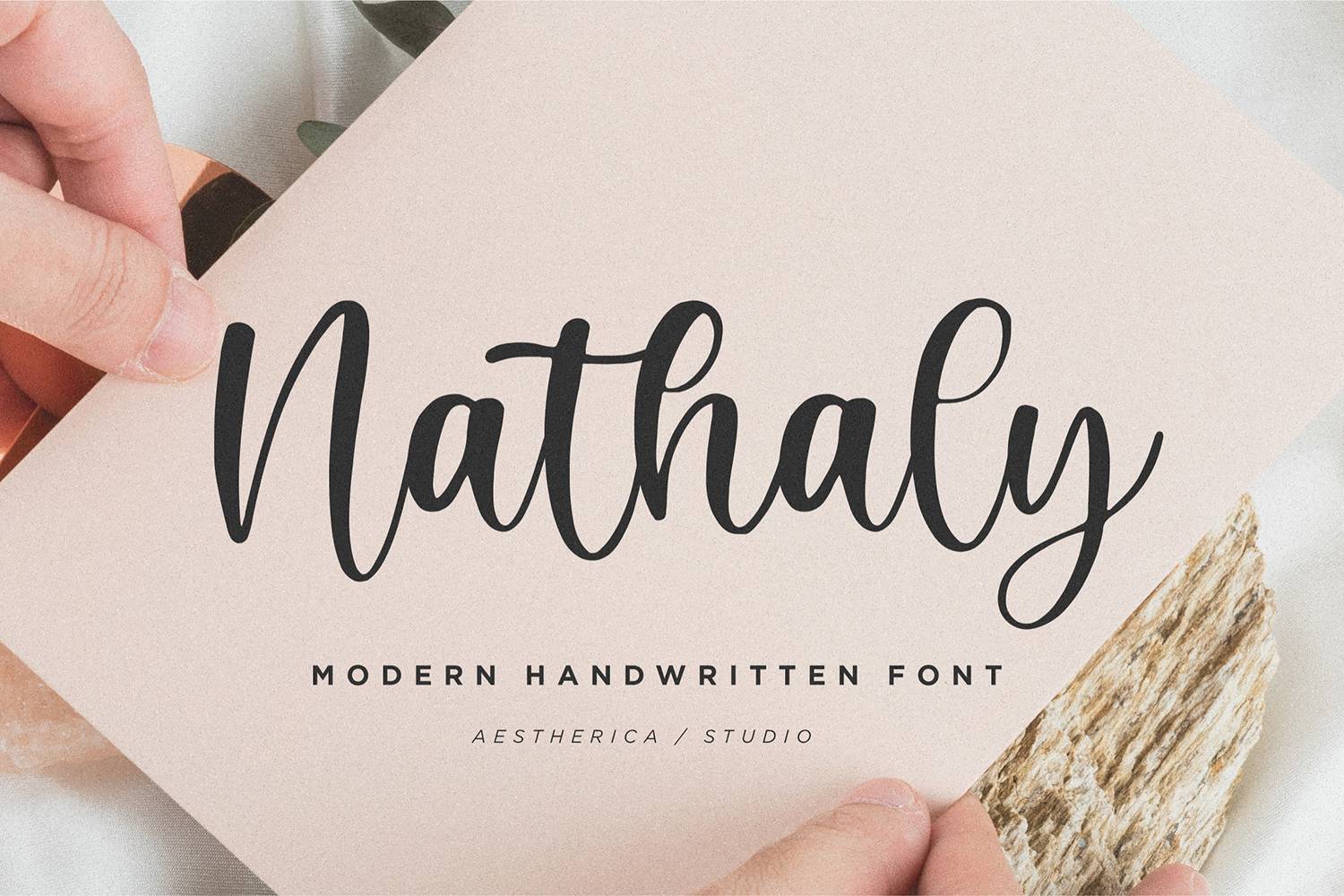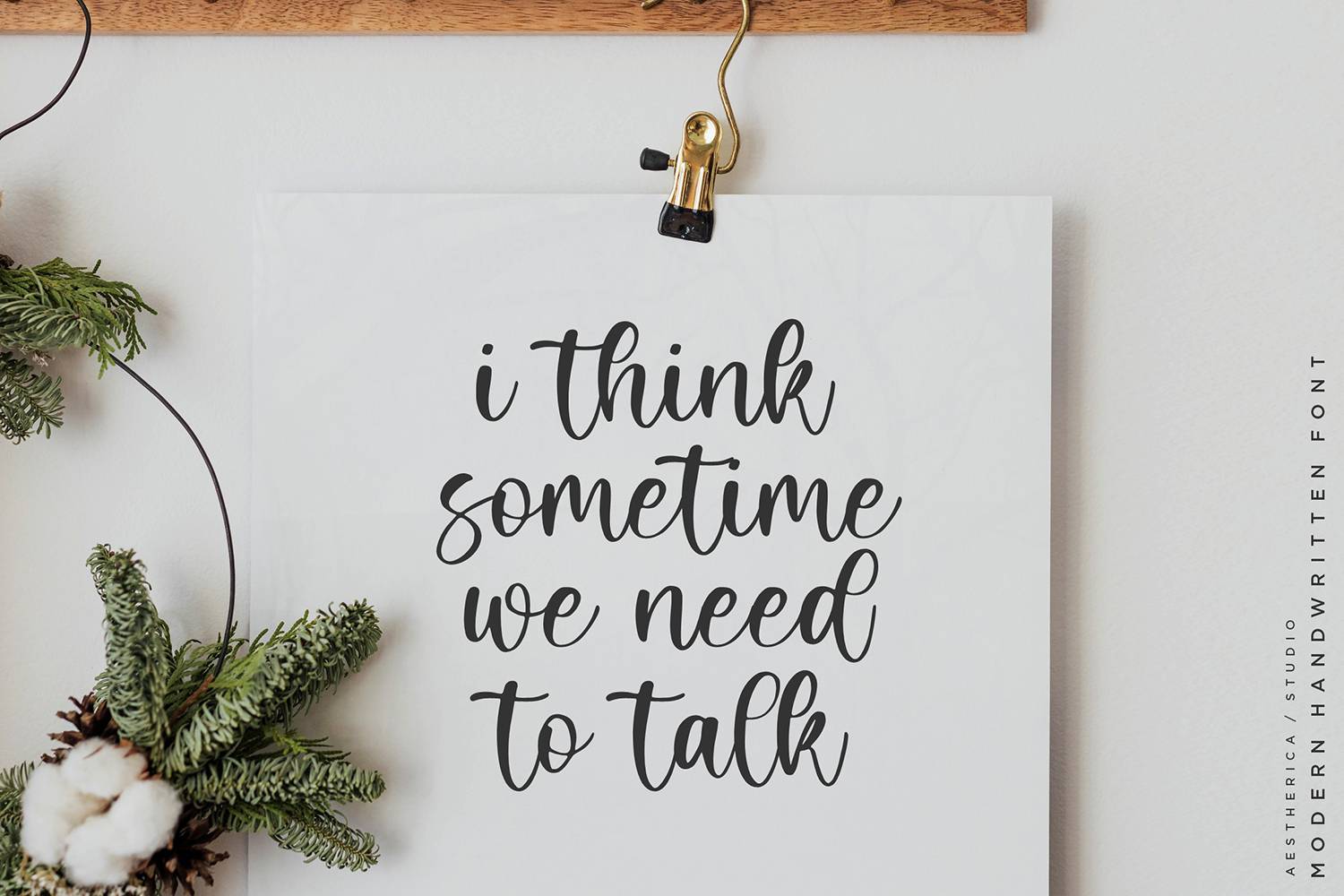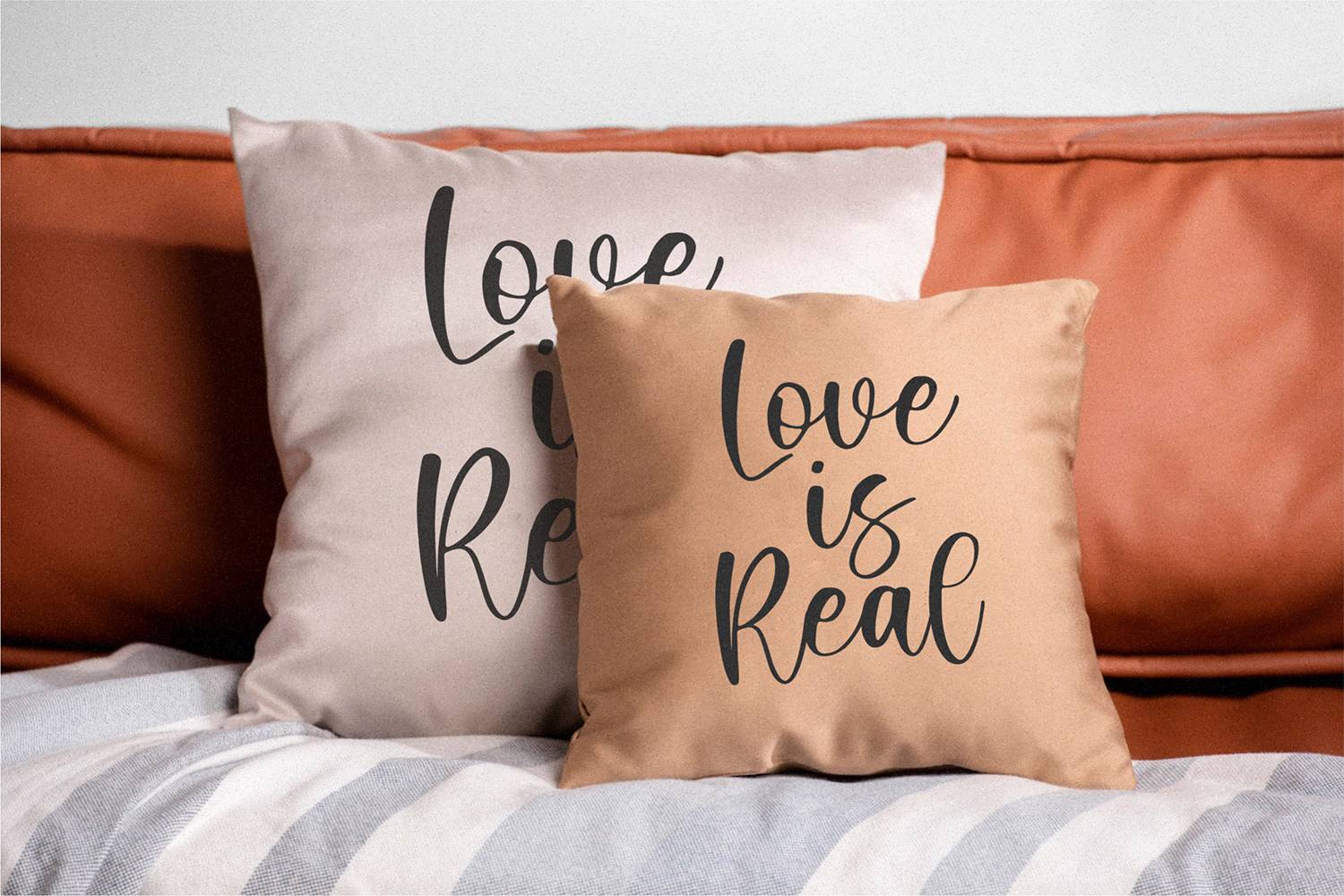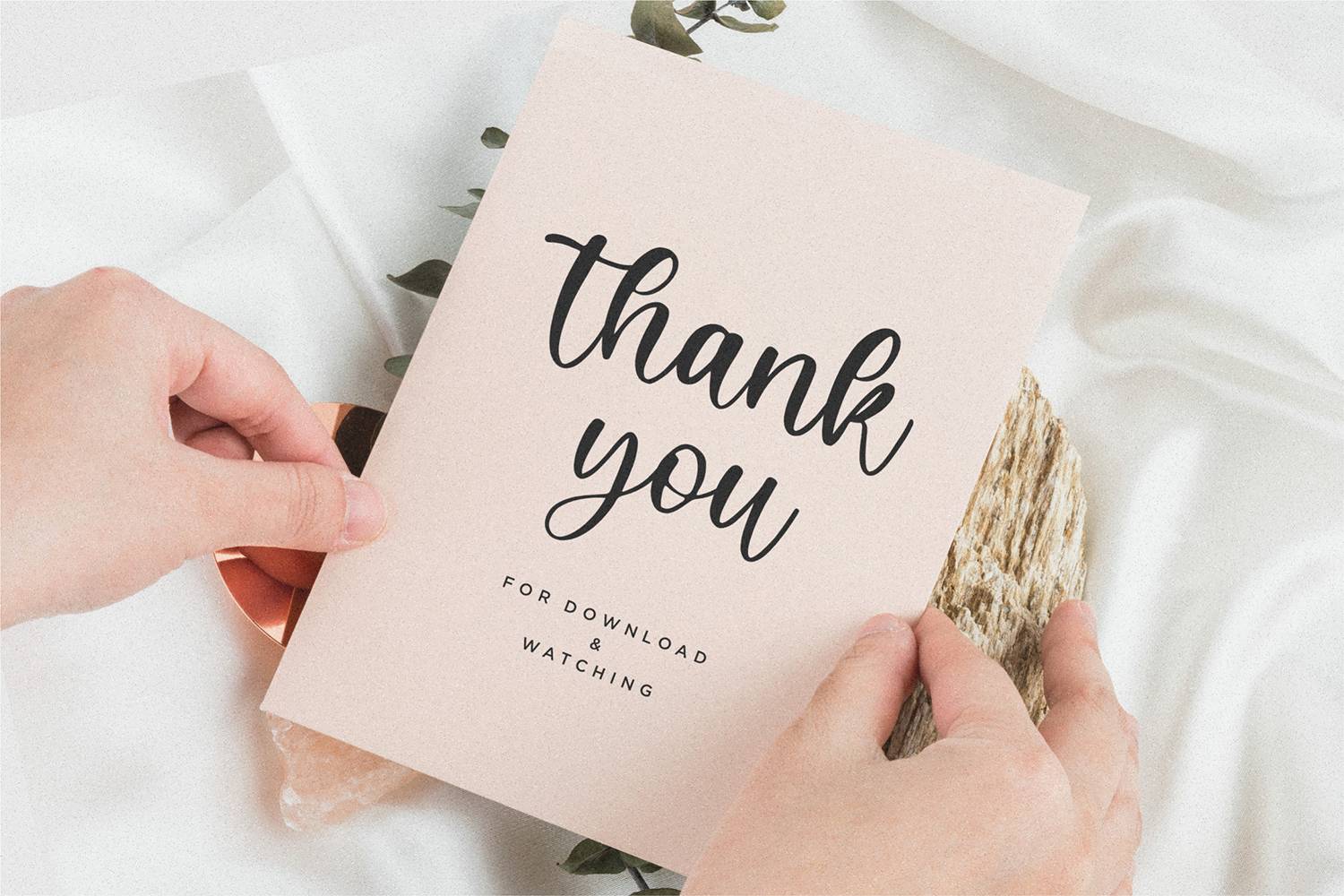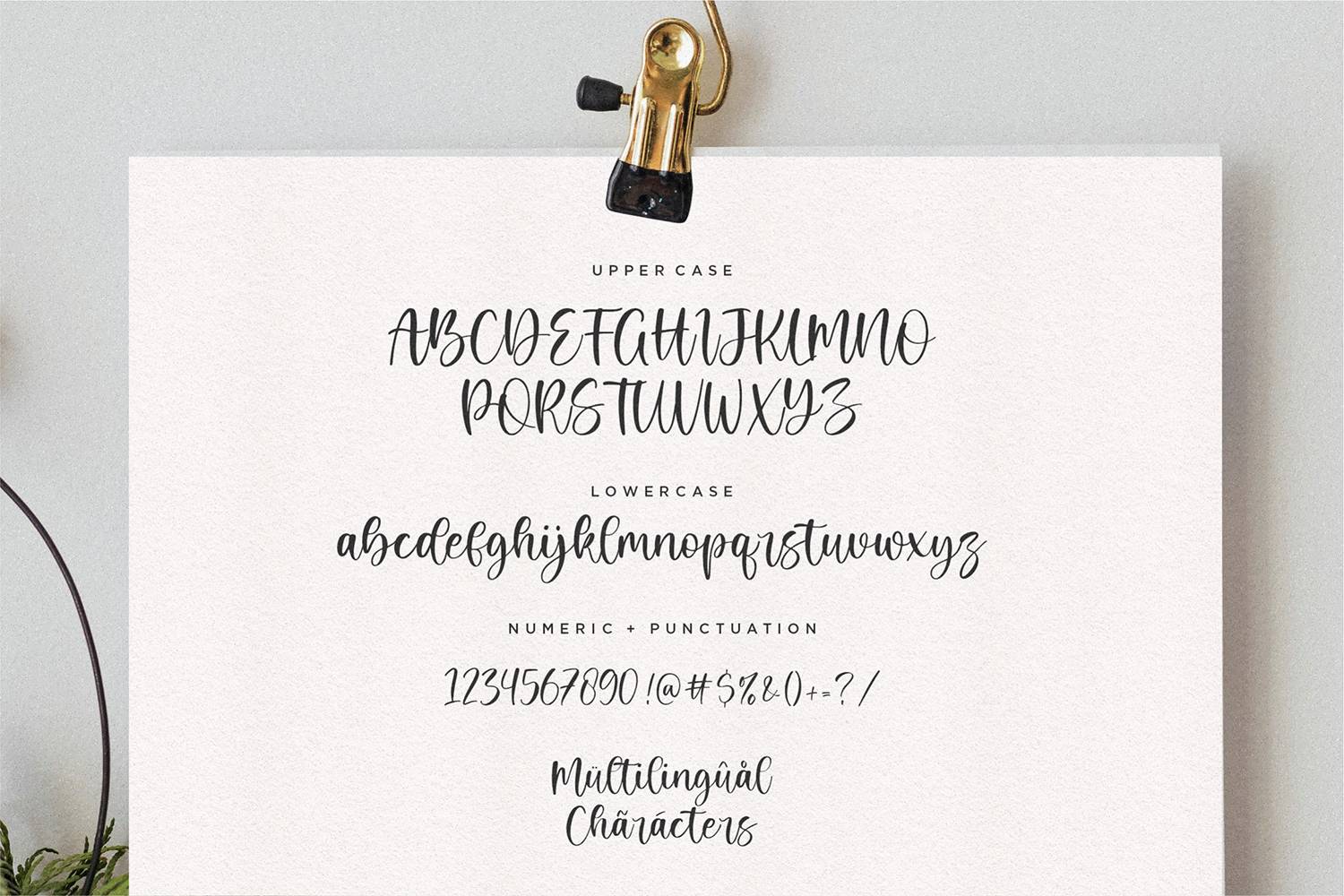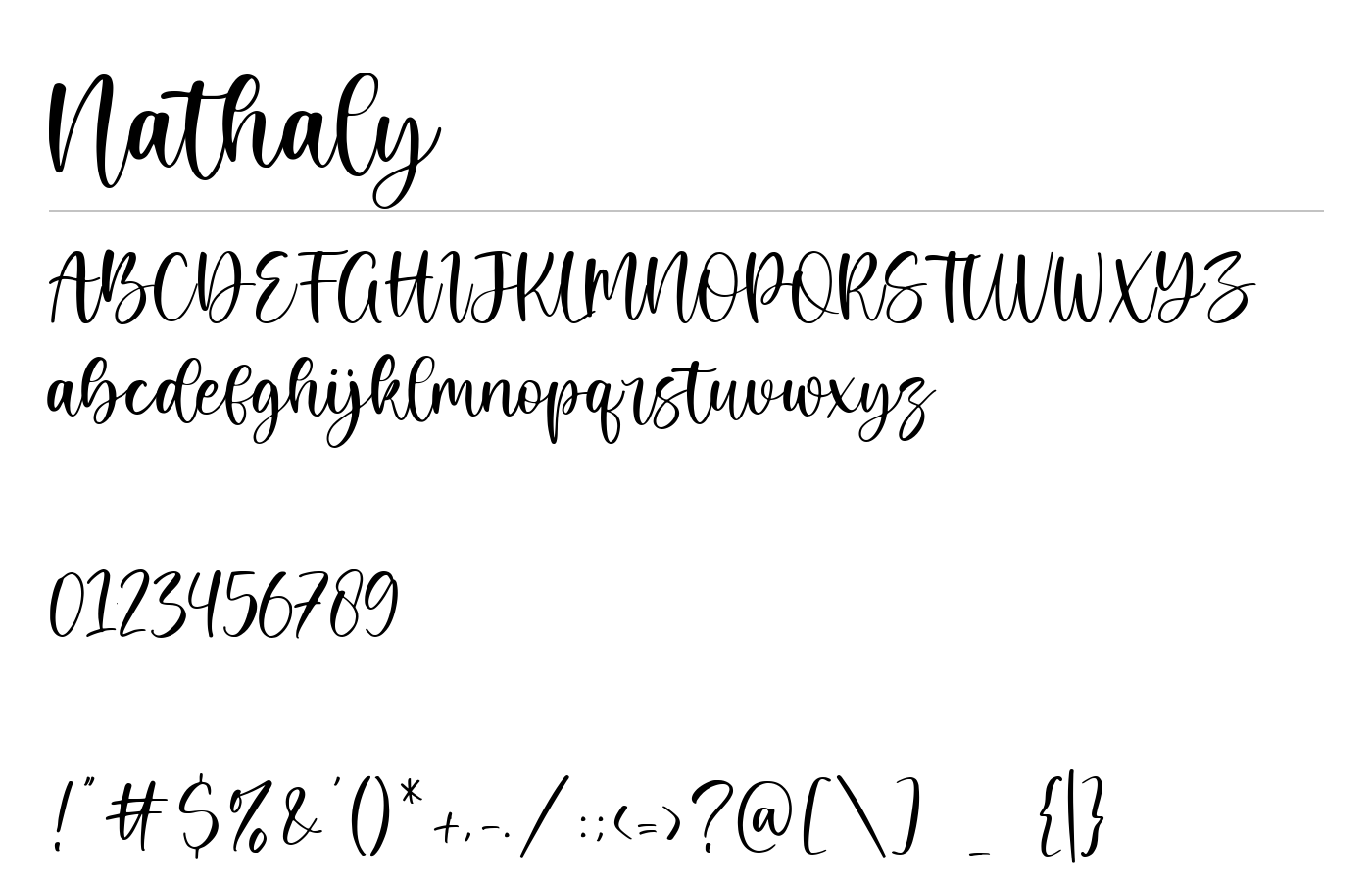
Nathaly is a lively script font with a hand-lettered feel, featuring fluid, brush-like strokes and a natural, elegant flow. Its medium weight and slightly condensed letterforms make it perfect for adding a personal, stylish touch to invitations, branding, and social media graphics where warmth and creativity are needed. This font works best in display uses, bringing a friendly yet sophisticated charm to any design.
Nathaly Font
About Nathaly Font